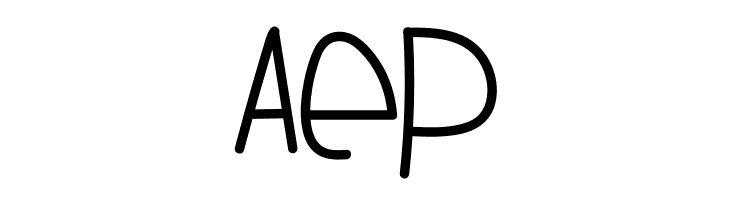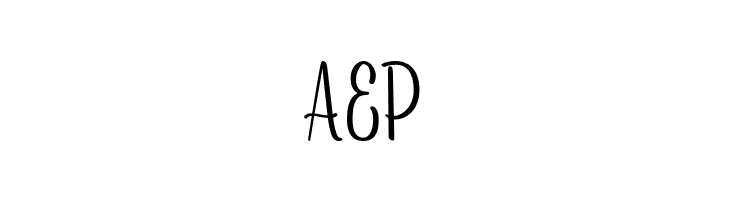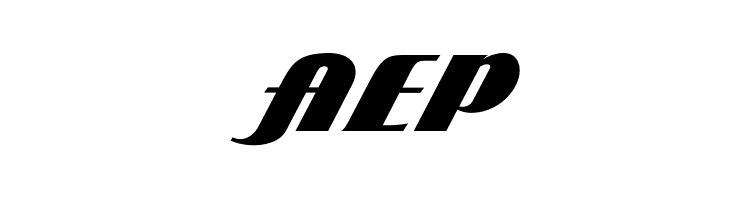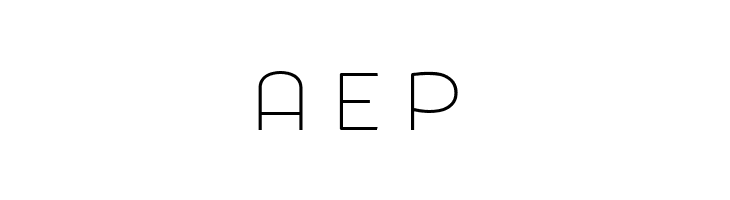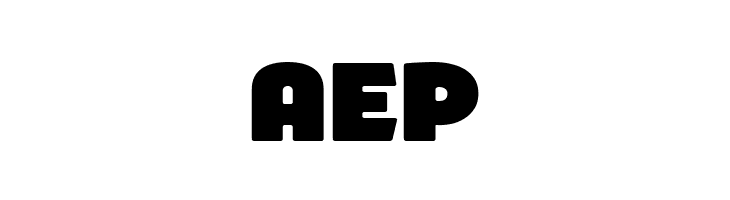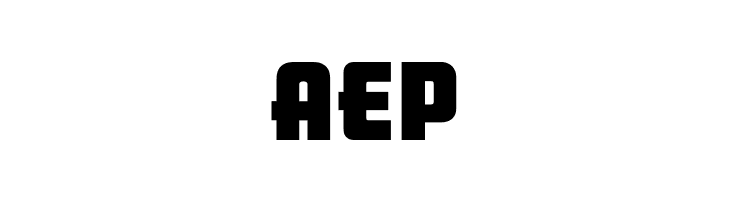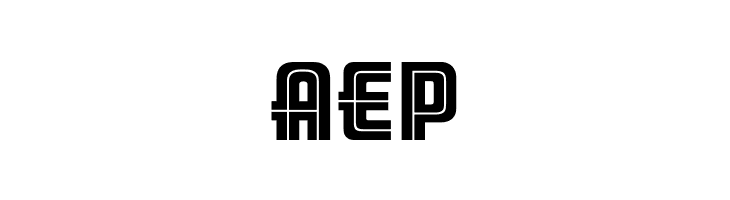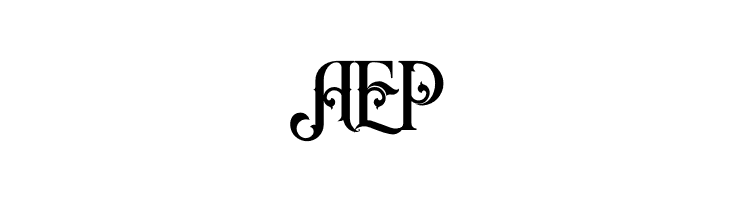
A classic serif font with elegant strokes and moderate contrast, ideal for refined designs.
A bold and expressive script font with elegant, flowing cursive letterforms.
A lively and elegant script font with dynamic, flowing strokes.
A versatile font combining elegant script with bold serif styles.
An elegant script font with flowing, cursive strokes and decorative swashes.
A bold, elegant serif font with high contrast and sharp serifs.
A clean, modern font with geometric structure and uniform strokes.
A playful, casual handwritten font with smooth, flowing curves.
A playful, handwritten font with a whimsical and modern style.
A playful, handwritten font with a whimsical and friendly style.
A bold serif font with high contrast and dramatic strokes, perfect for impactful headlines.
A bold, geometric font with a strong, uniform appearance.
A bold, geometric font with a neon-like double-line design.
A bold, dynamic script font with high contrast and decorative flourishes.
A bold, classic serif font with strong, authoritative characters.
A bold, rounded font with a strong and friendly appearance.
A modern, rounded font with geometric structure and balanced spacing.
A bold, rounded font with a three-dimensional outline for a playful, modern look.
A bold, rounded font with a playful and modern style.
A cursive, handwritten-style font with elegant, flowing strokes.
An ornate and decorative font with intricate swirls and flourishes.
An ornate and decorative font with intricate swirls and embellishments.
A playful, bubble-like font with a hand-drawn, whimsical style.
A playful, handwritten font with bold, rounded strokes and a whimsical style.